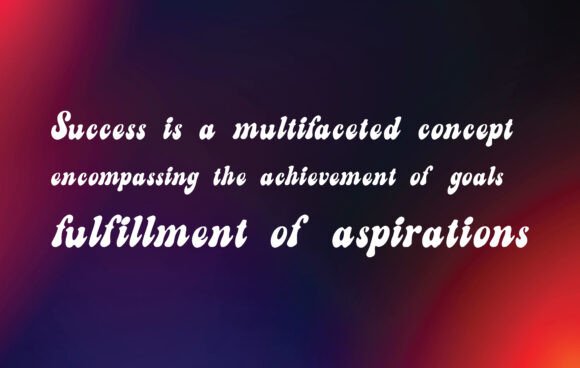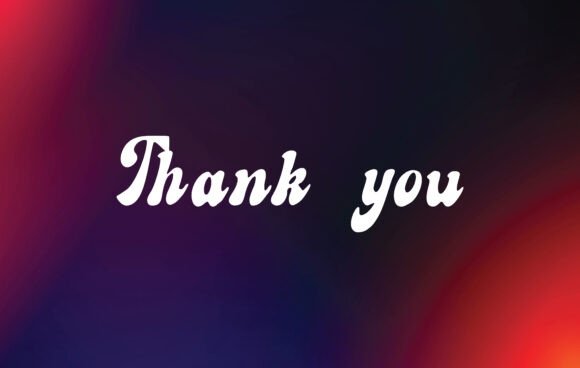
Introduction to Johnson Font
Johnson is a lovely and beautiful handwritten font.
Key Features of Johnson Font
Why Choose Johnson Font?
Johnson Font offers exceptional quality and versatility, making it a valuable addition to your design toolkit. Whether you’re creating for personal projects or commercial use, Johnson Font delivers professional results.